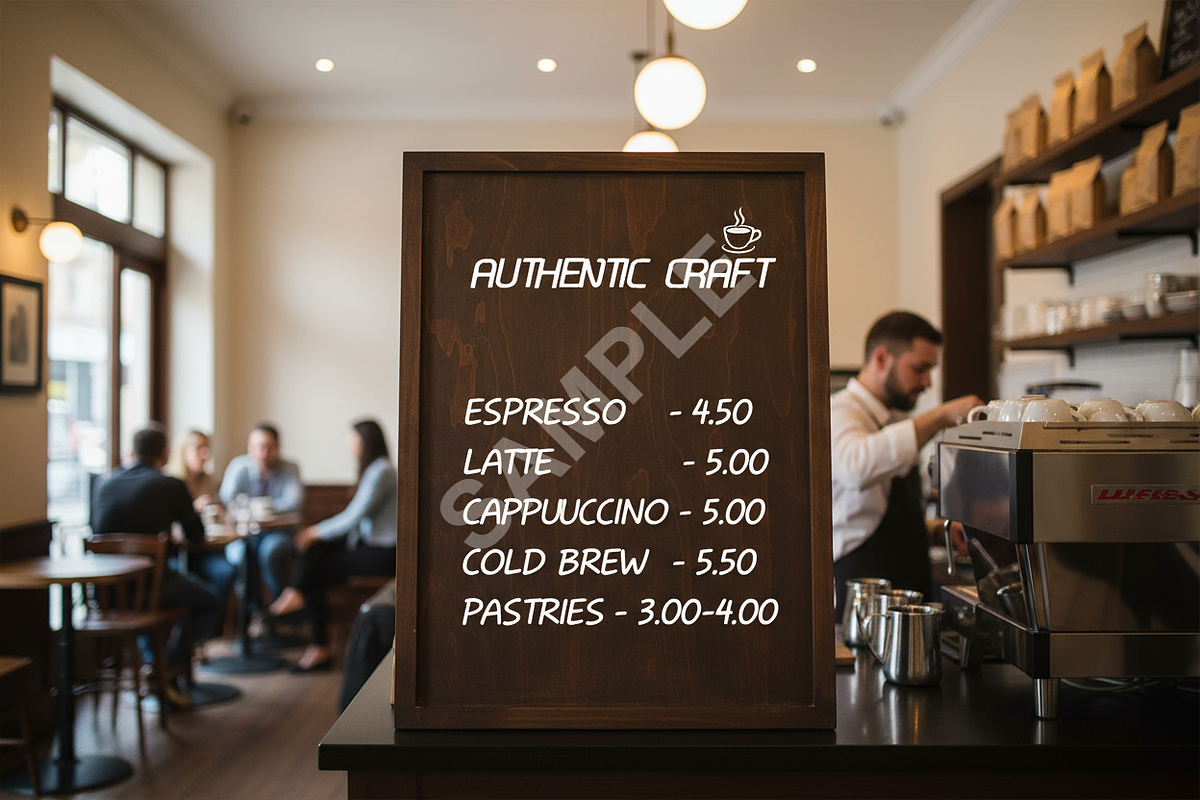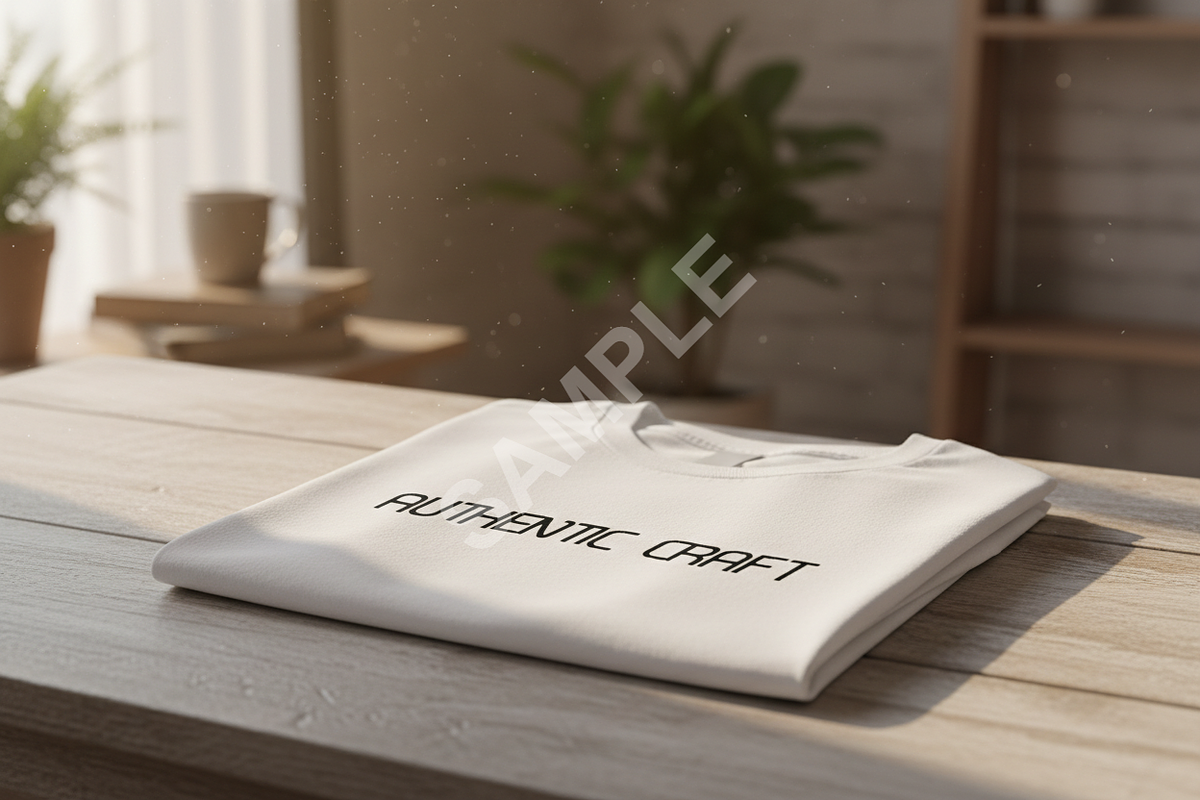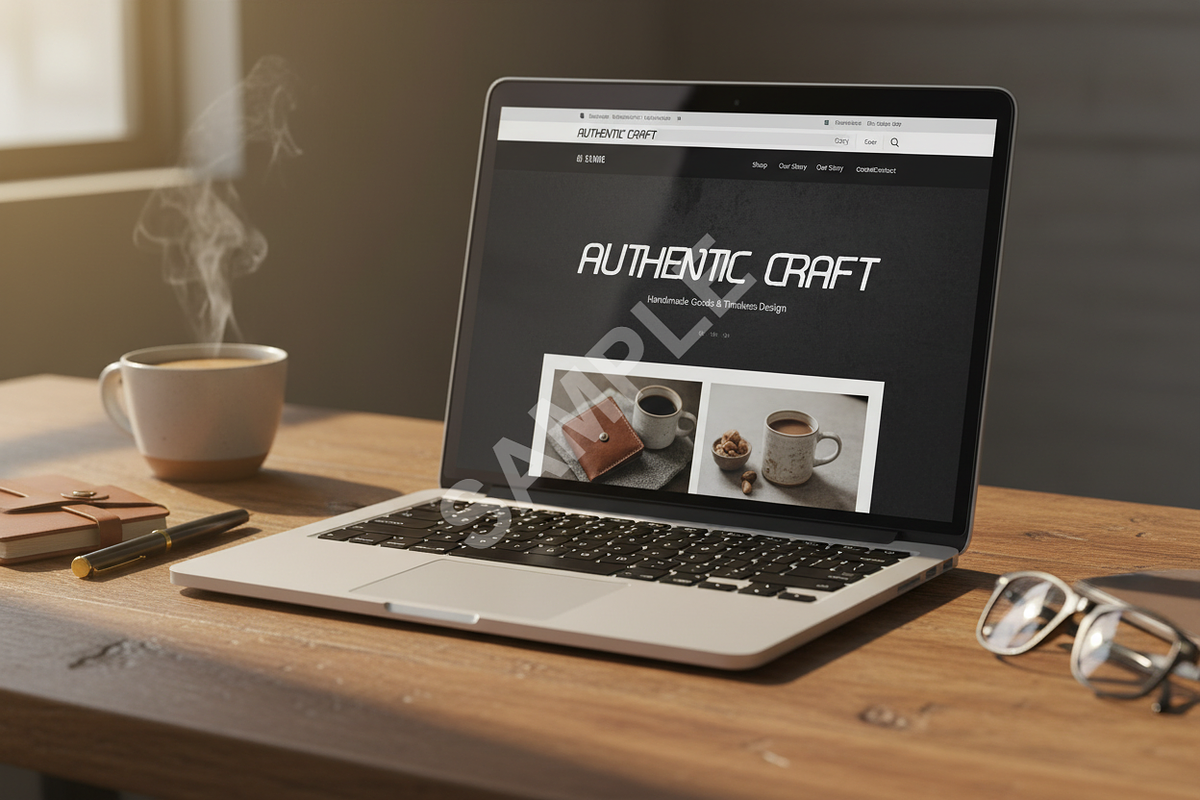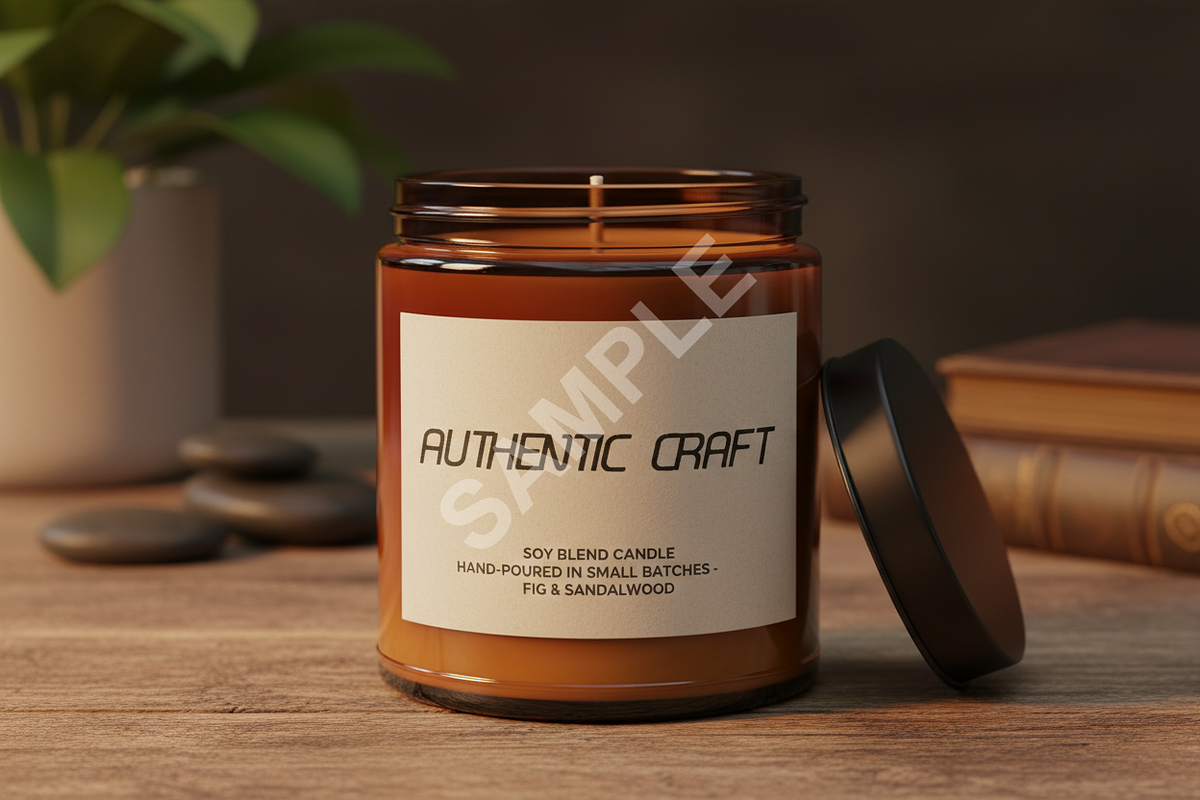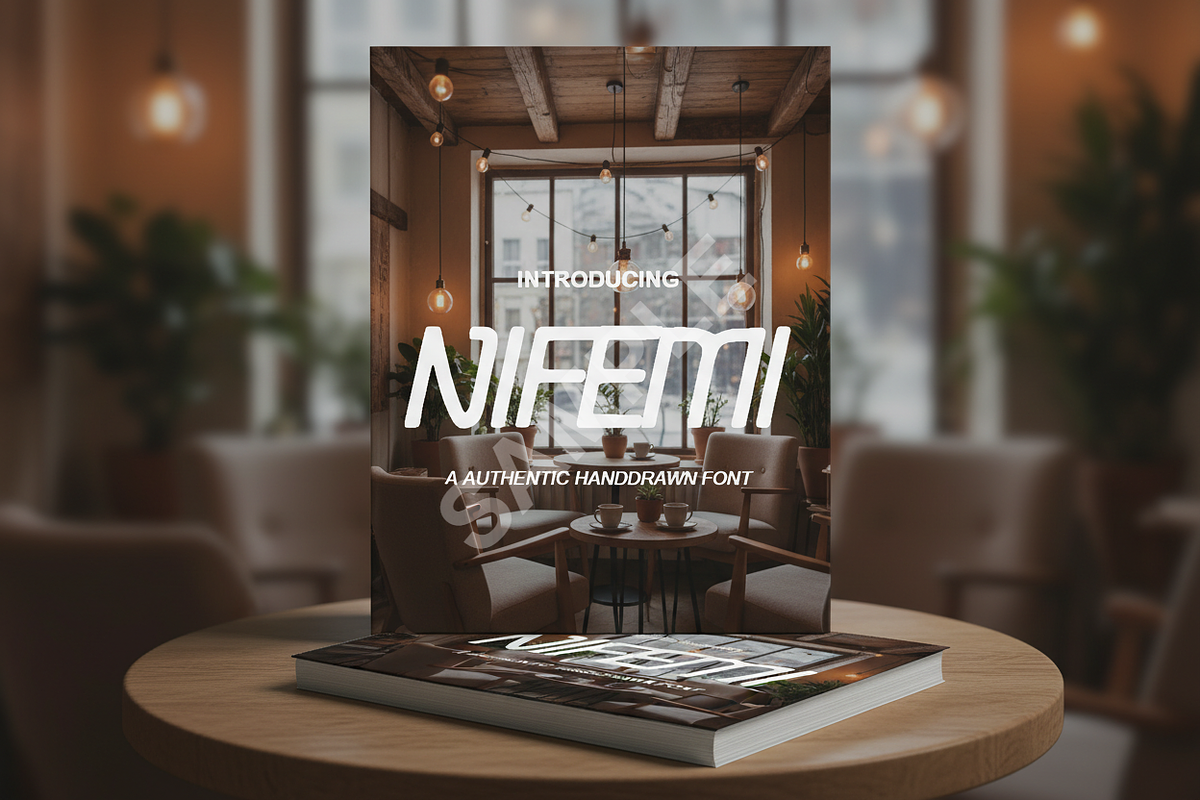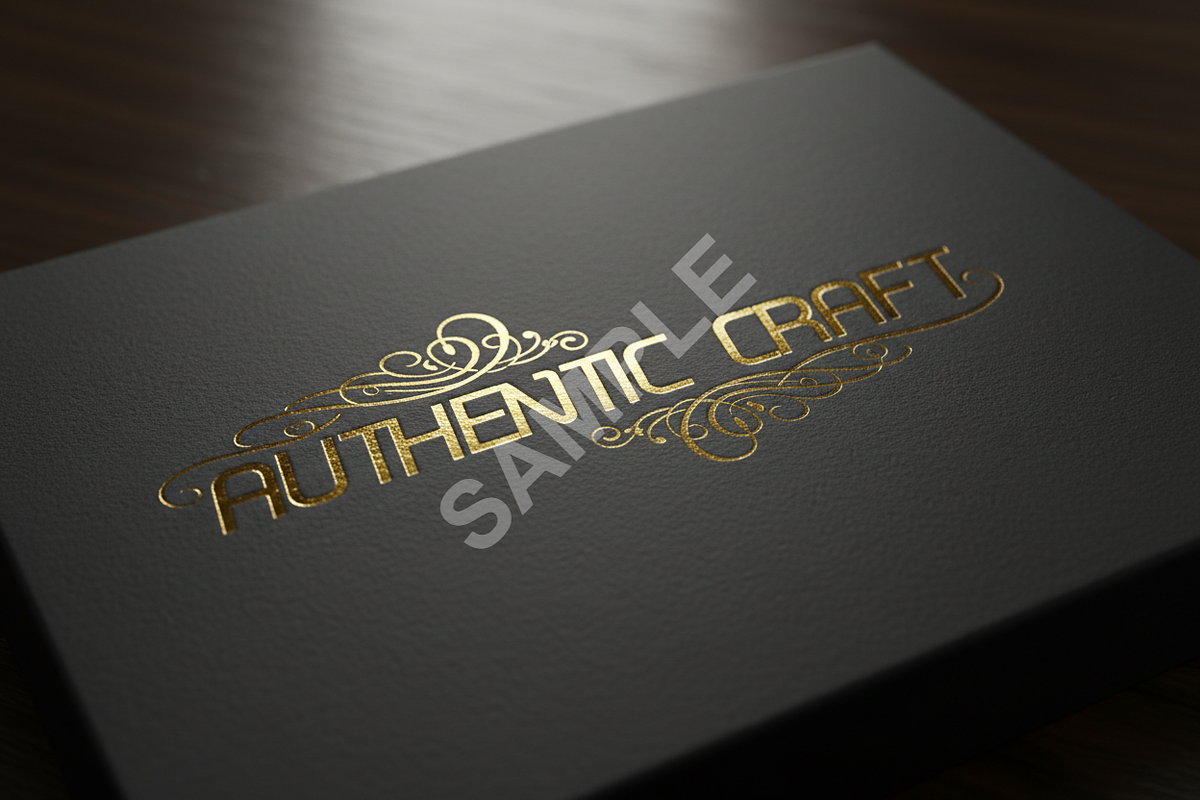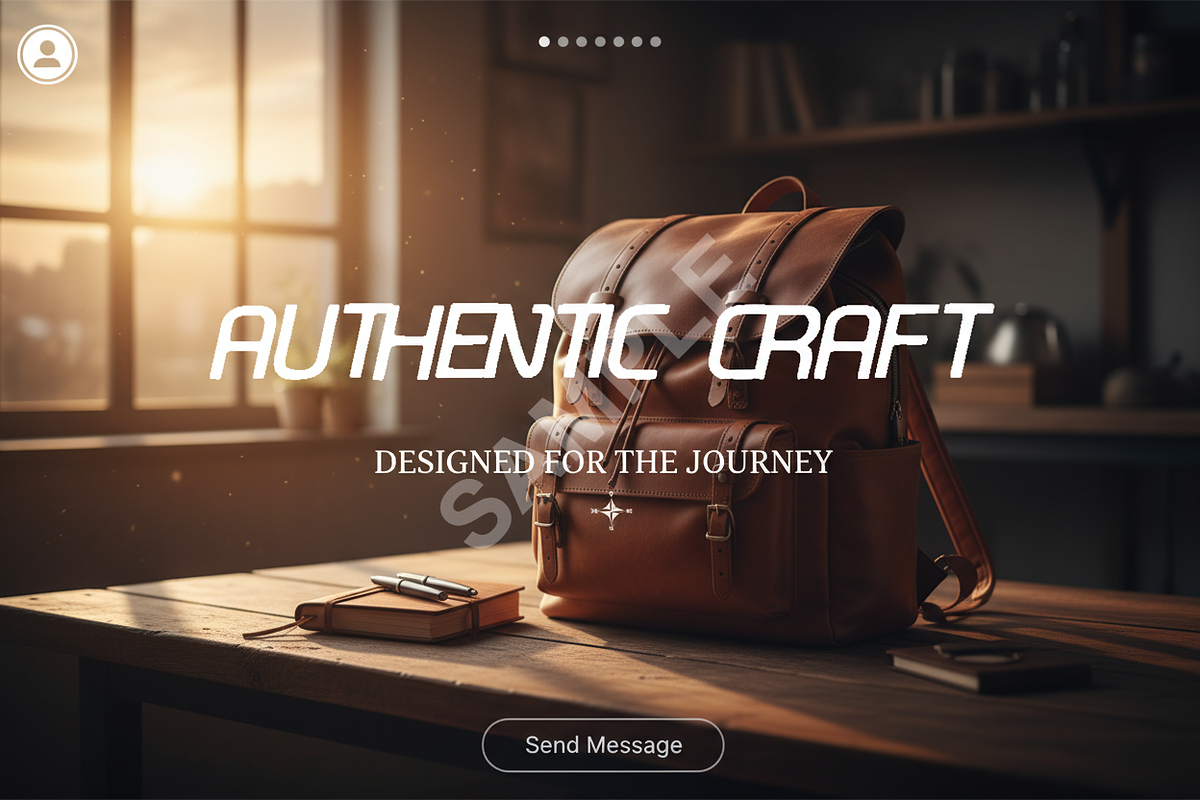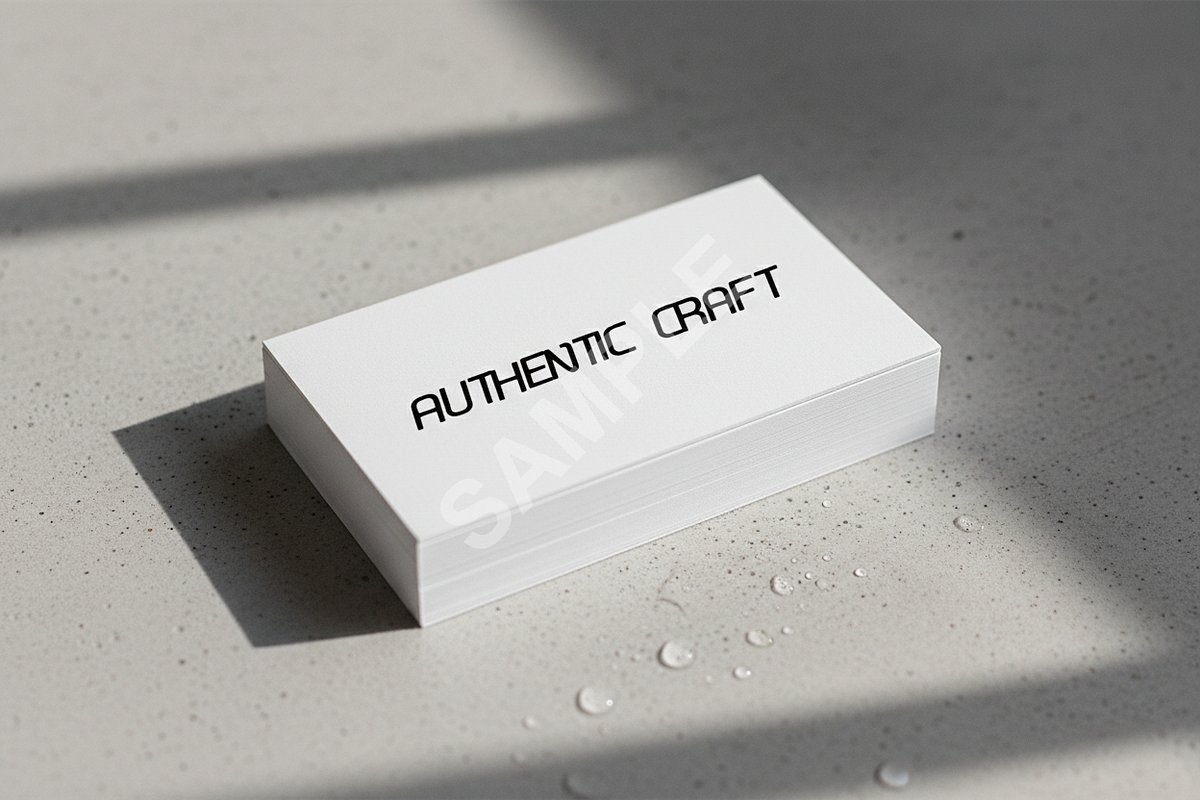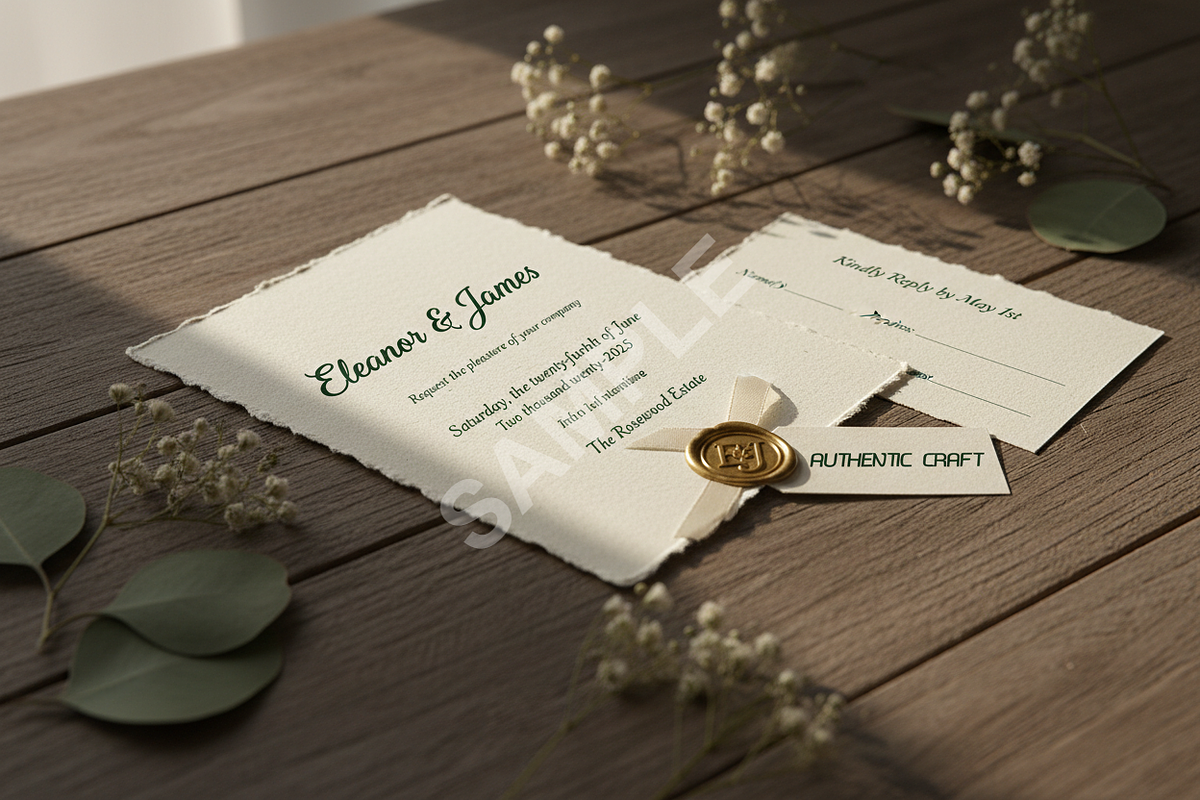
Nifemi | A Sophisticated & Elegant L
INTRODUCTION
Elevate your creative vision with Nifemi, a premium serif typeface meticulously crafted for high-end aesthetics. Nifemi balances timeless classical proportions with a contemporary flair, making it an essential tool for designers who demand sophistication. This font is specifically designed to shine in luxury branding, editorial layouts, high-fashion storytelling, and curated social media content.
- Refined high-contrast letterforms for a premium feel
- Elegant, slender terminals and sharp serifs
- Meticulously adjusted kerning for professional-grade typography
- Full multilingual support for global accessibility
- Optimized for high-resolution displays and print reproduction
- Comprehensive character set including punctuation and symbols